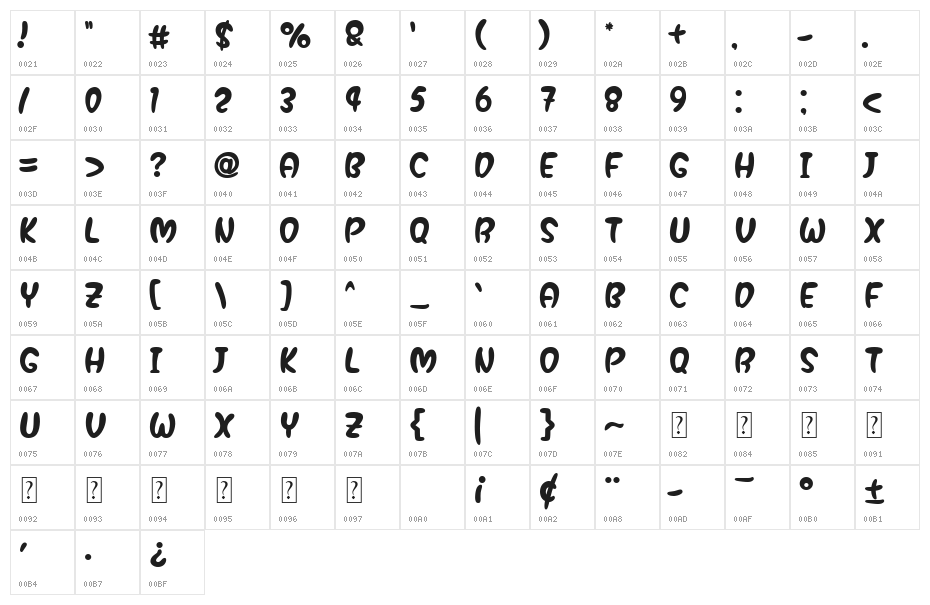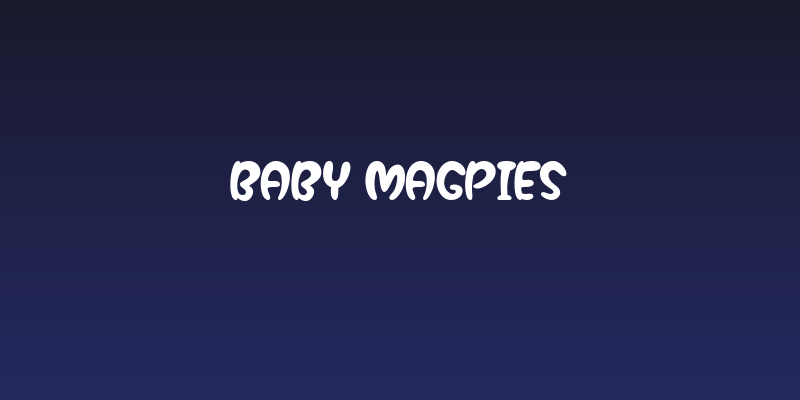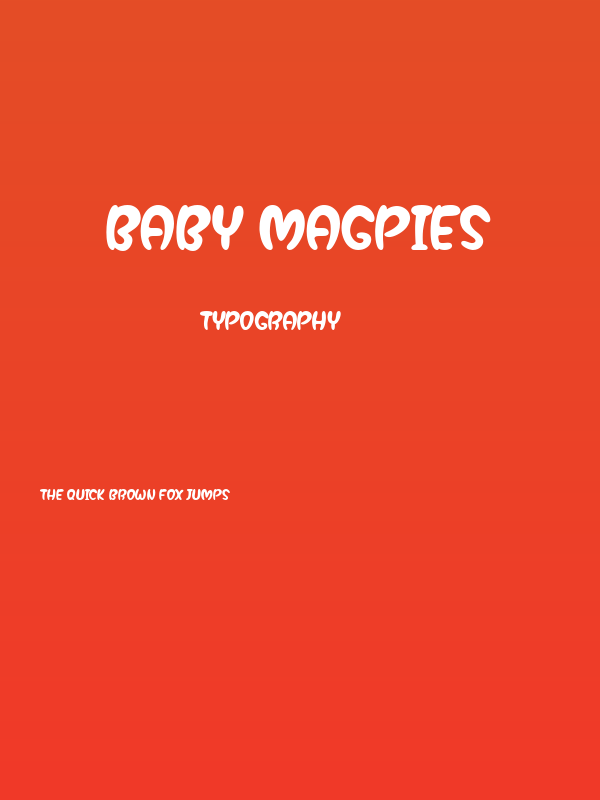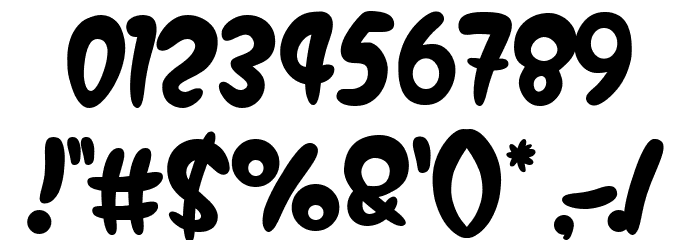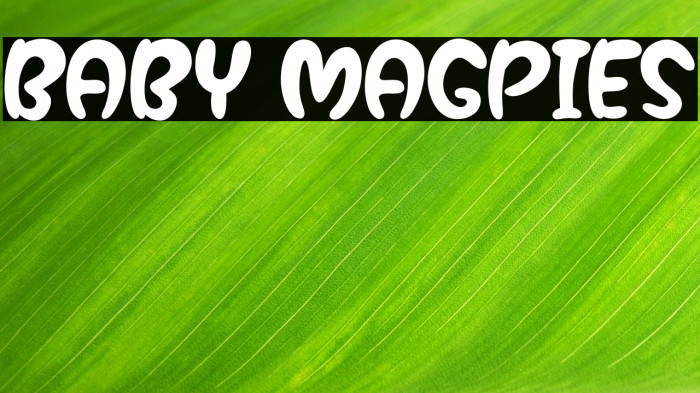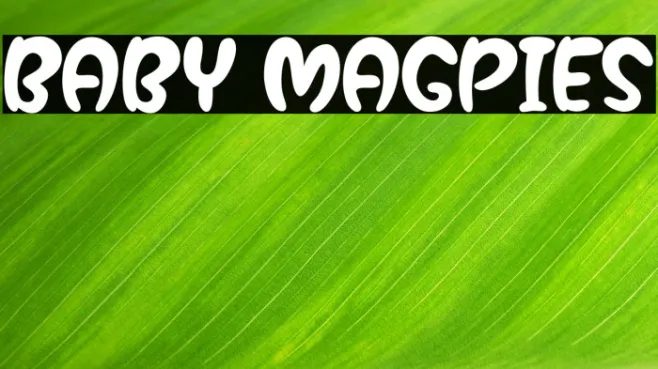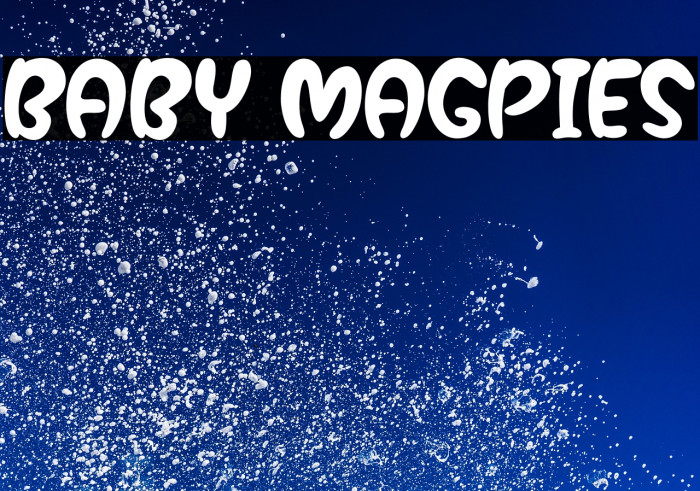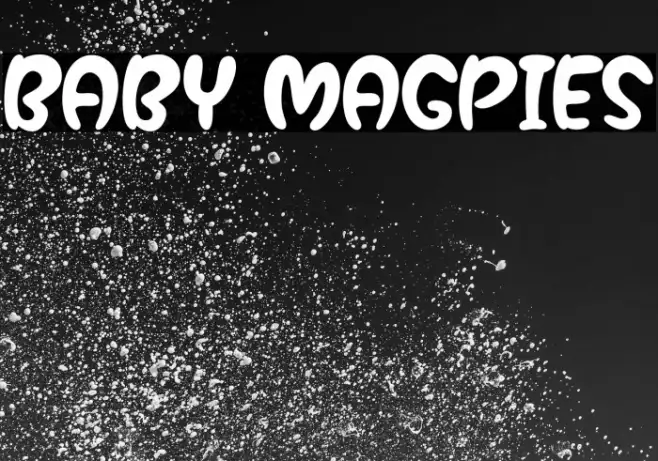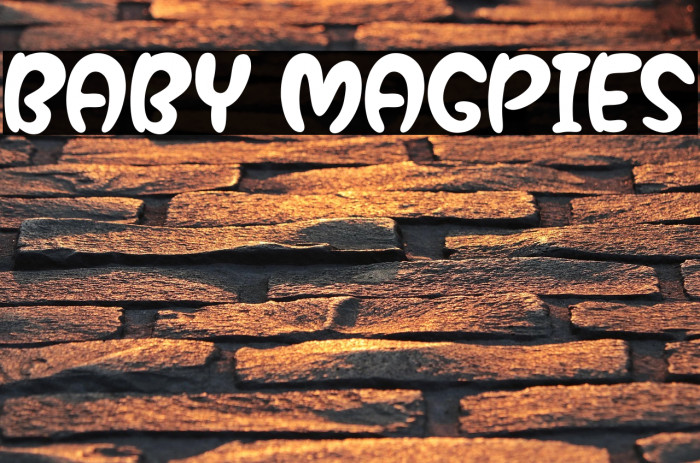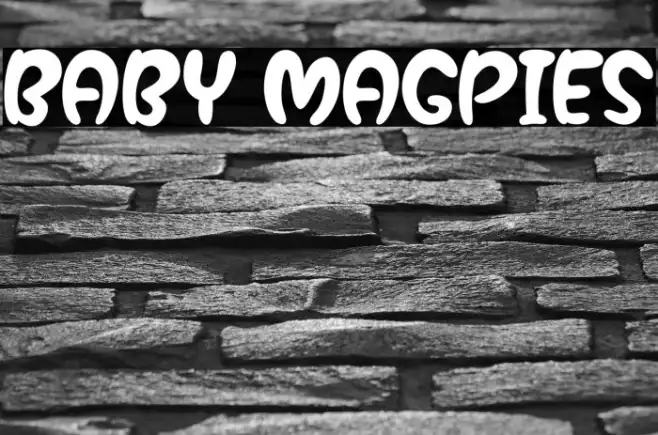
Baby Magpies Font
Baby Magpies Description
This playful and bold font features rounded, bubbly characters that exude a sense of fun and whimsy. The letters are thick and have a consistent stroke width, giving them a strong presence on the page. The curves are smooth and exaggerated, contributing to a friendly and approachable aesthetic. The numbers and special characters maintain the same playful style, ensuring a cohesive look across all text elements. This font is perfect for projects that aim to convey a sense of joy and creativity.
| Proposed Projects | Ideal for children's books, playful branding, party invitations, and creative posters. |